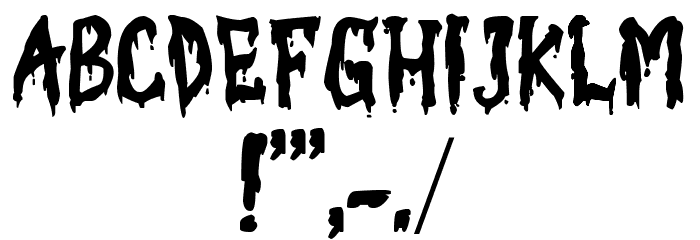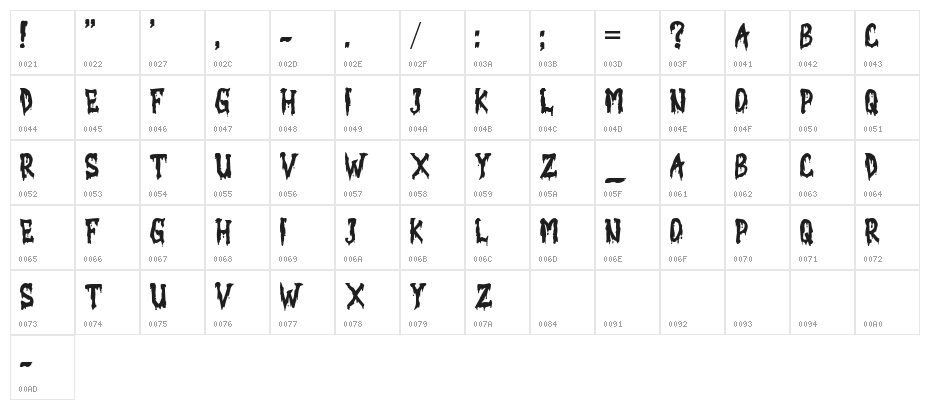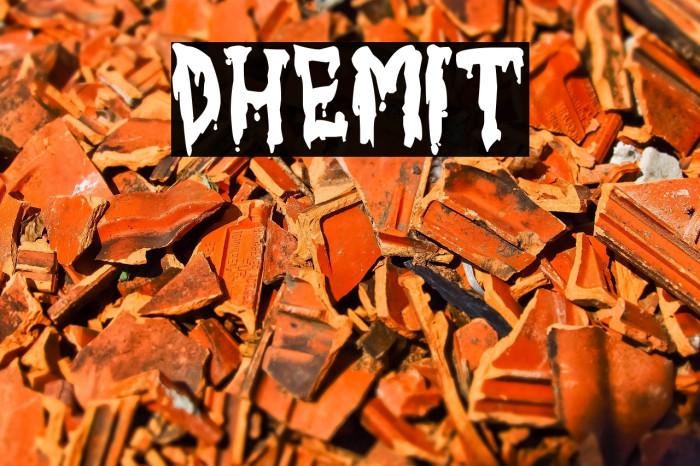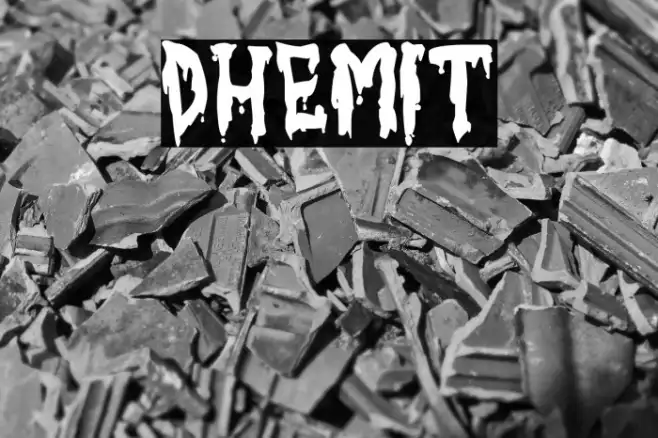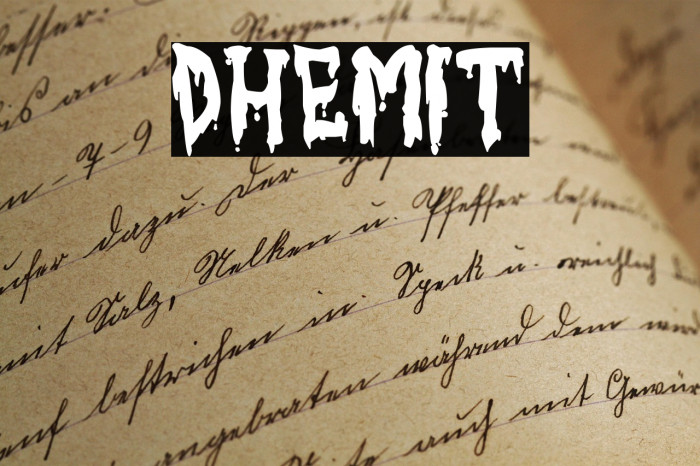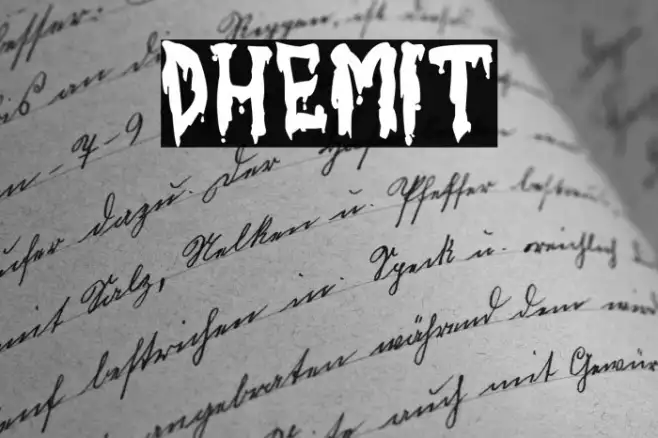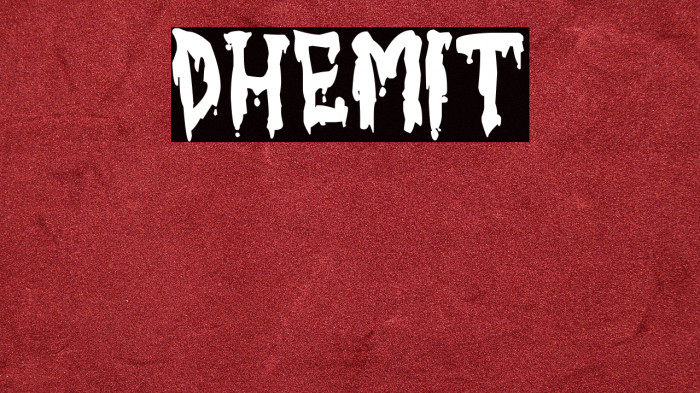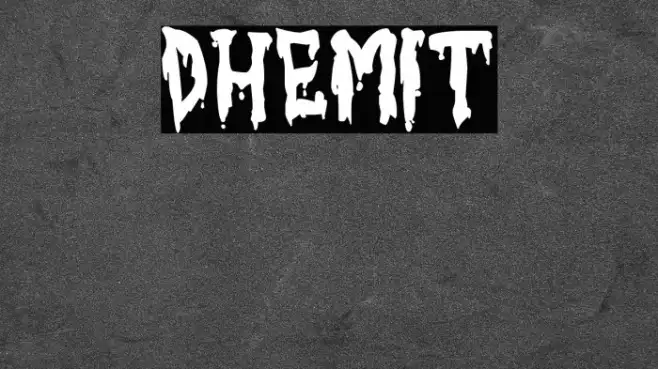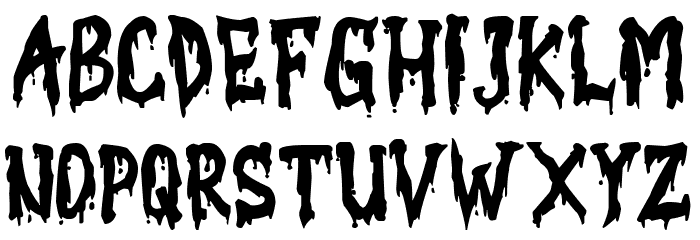
DHEMIT Font
DHEMIT Description
This font features a bold and dramatic style with a dripping effect that gives it a horror or Halloween-themed appearance. The characters are uppercase and have a rough, uneven texture that mimics the look of wet paint or ink. The design is highly decorative, making it suitable for eye-catching titles or themed graphics. The font's unique style is characterized by its irregular edges and the illusion of liquid dripping from the letters, adding a sense of movement and fluidity. This makes it particularly effective for projects that require a spooky or eerie aesthetic.